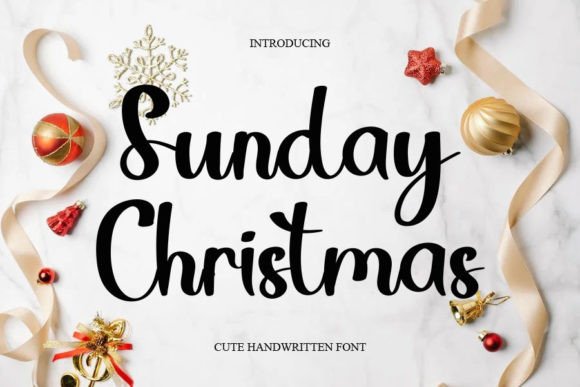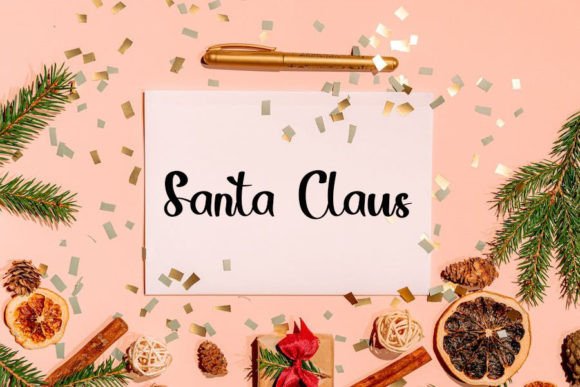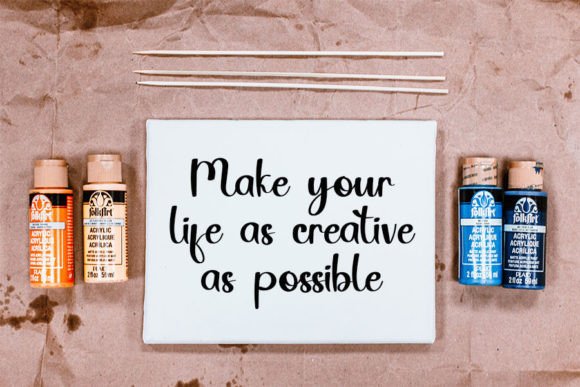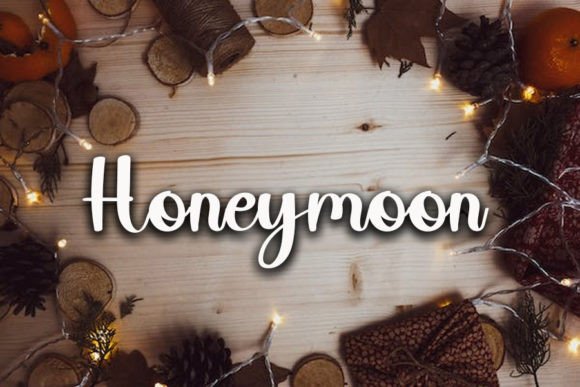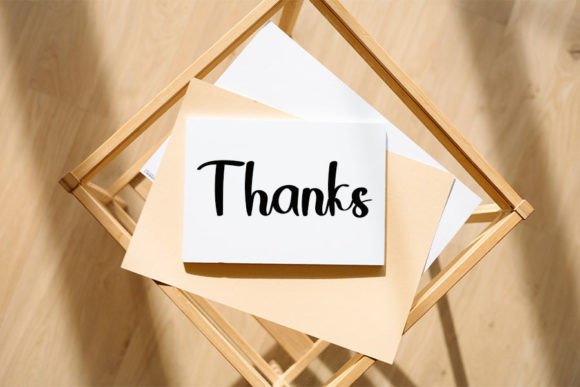
Sunday Christmas Font
About Sunday Christmas Font
Add Holiday Charm to Your Designs
The Sunday Christmas font download brings a festive touch with its clean, quirky handwritten style. Created with elegance in mind, this magical font works perfectly for all your seasonal and year-round creative projects.
Perfect for Multiple Uses
Whether you’re designing logos, social media graphics, or personalized gift tags, this font adapts beautifully. Its soft, modern curves and slightly playful character make it an ideal choice for holiday themes or everyday DIY crafts.
Elegant, Fun, and Easy to Use